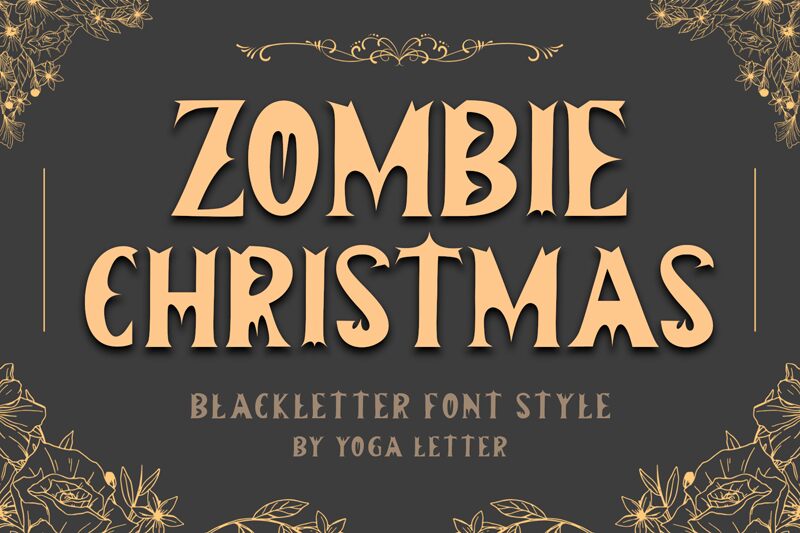
Zombie Christmas font by Yoga Letter is a free font bringing an edgy holiday twist to your projects. This unique typeface combines vintage blackletter influences with a playful festive undertone, making it both dramatic and ornamental. Its intricate detailing and bold presence give it a strong character that stands out, perfect for invoking a whimsical yet historical vibe.
Ideal for holiday cards, festive invitations, packaging, posters, and event promotions, Zombie Christmas adds a touch of bold creativity. Its unique style also works well in branding, book covers, social media graphics, or any project where you want an eye-catching and playful free font.